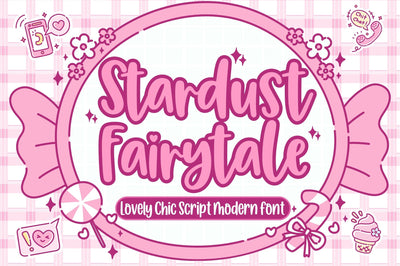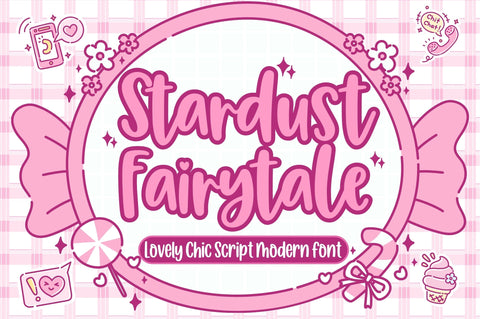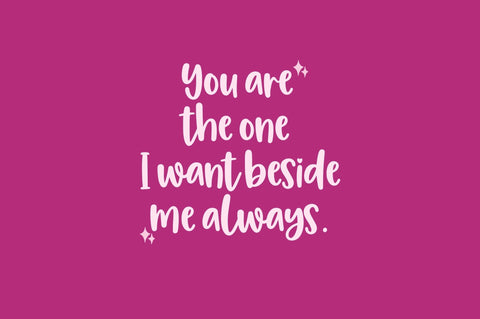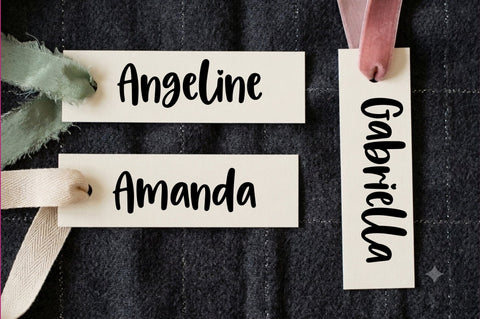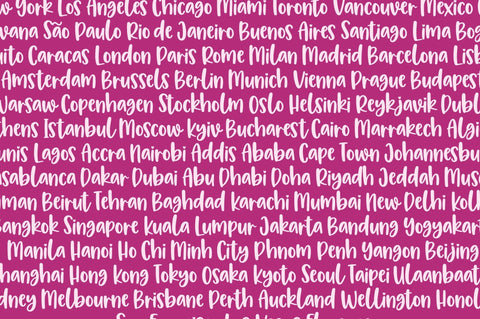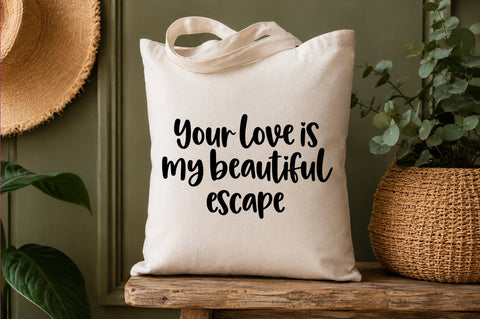
Stardust Fairytale
Stardust Fairytale is a chic and modern script font that blends graceful elegance with a dreamy, enchanting personality. Inspired by the magic of starlit nights and timeless fairytales, this typeface brings a delicate yet stylish handwritten feel to every word.
With its smooth flowing strokes, elegant curves, and sophisticated letterforms, Stardust Fairytale creates a beautiful balance between modern fashion and romantic charm. Its graceful appearance makes it effortlessly eye-catching while remaining versatile for a wide range of creative projects.
Perfect for wedding invitations, bridal stationery, romantic branding, fashion logos, beauty products, greeting cards, quotes, social media designs, packaging, posters, editorial layouts, and feminine lifestyle projects.
Whether used for a luxurious logo, an elegant wedding suite, or a dreamy quote design, Stardust Fairytale adds a touch of magic and sophistication wherever it goes.
Stardust Fairytale — where modern elegance meets a little touch of magic.